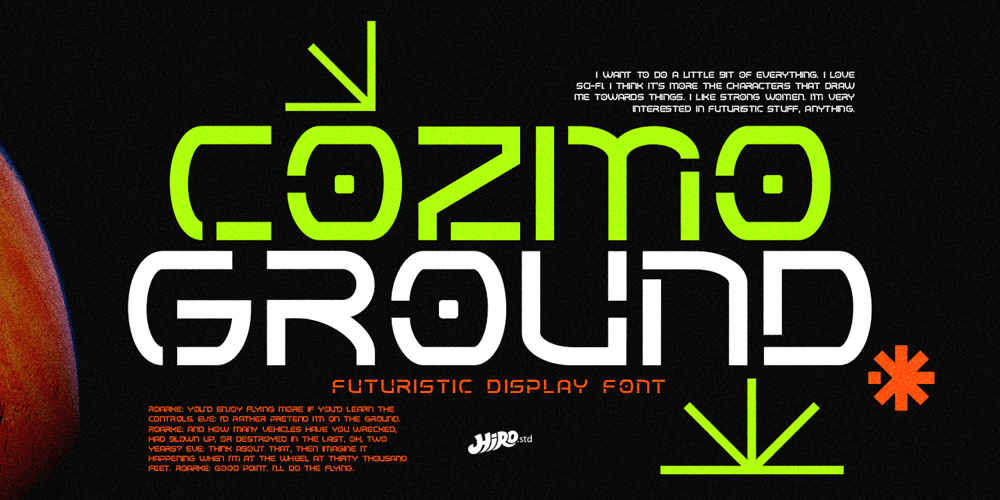
Cozmo Ground Font Family was designed by Chairul Ashar and published by HIRO.std. Cozmo Ground contains 1 styles and family package options. Cozmo Ground is a futuristic display font. This font describes about futurism, space, sci-fi, modern, simple, clean and easy to use. FEATURES- Uppercase letters- Numbering and Punctuations- PUA Encoded Characters- Multilingual Support- Works on PC or Mac USECozmo Ground works great in movie title, game title, headline, logotype, labels, magazine, packaging, apparel, and any projects that need futuristic taste. Enjoy using!Thanks. HIRO.std